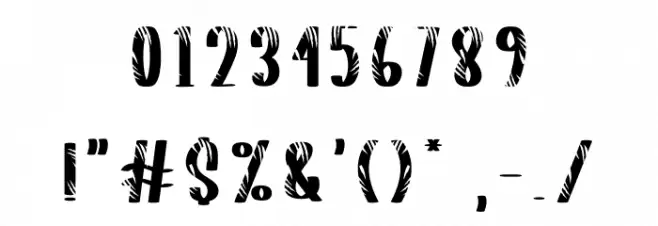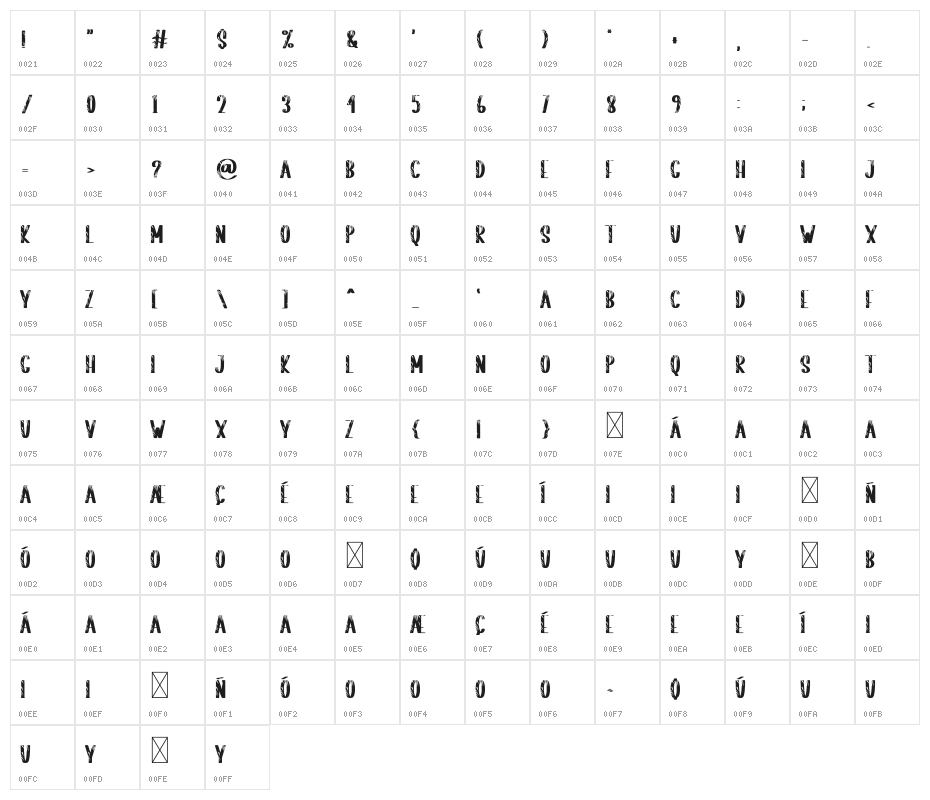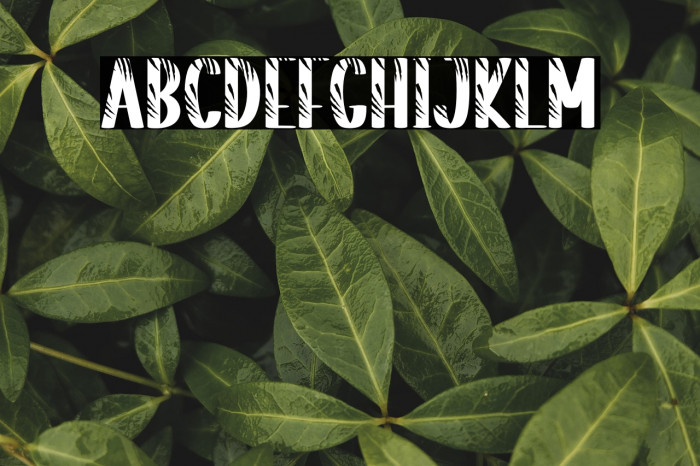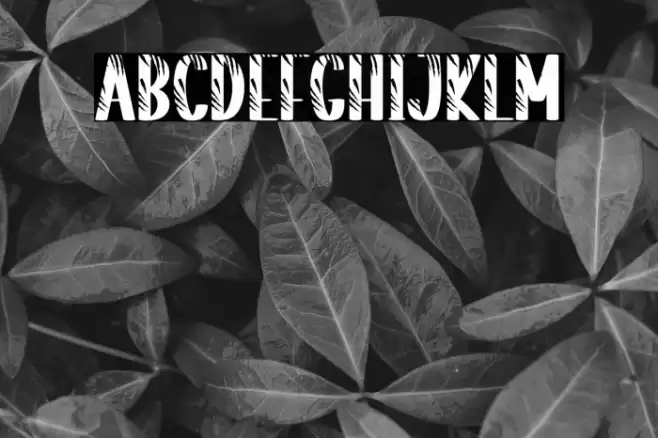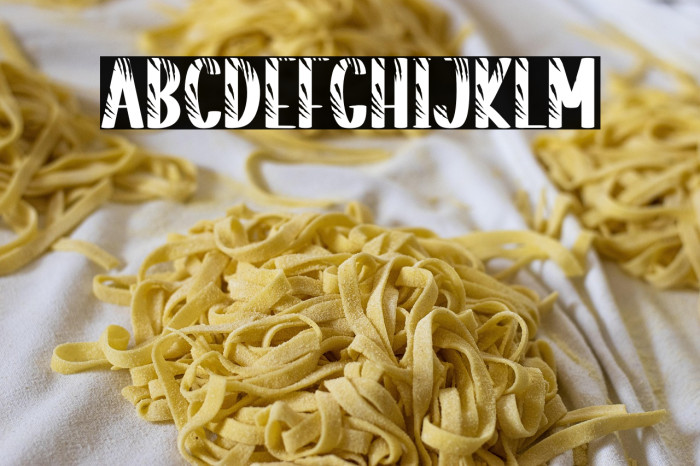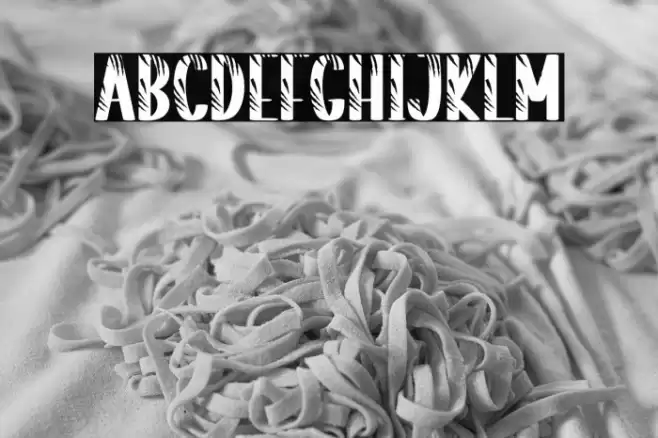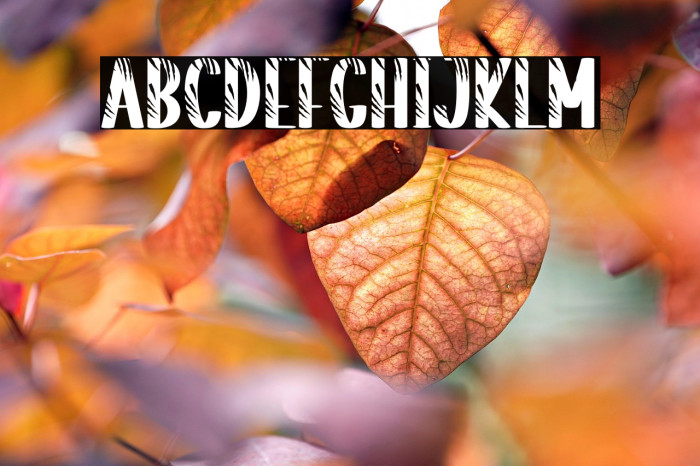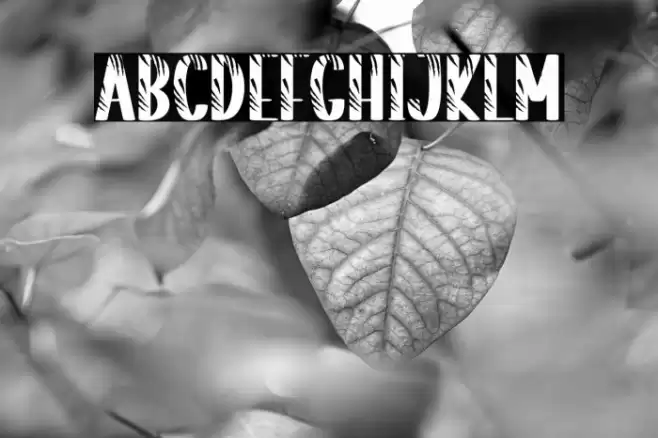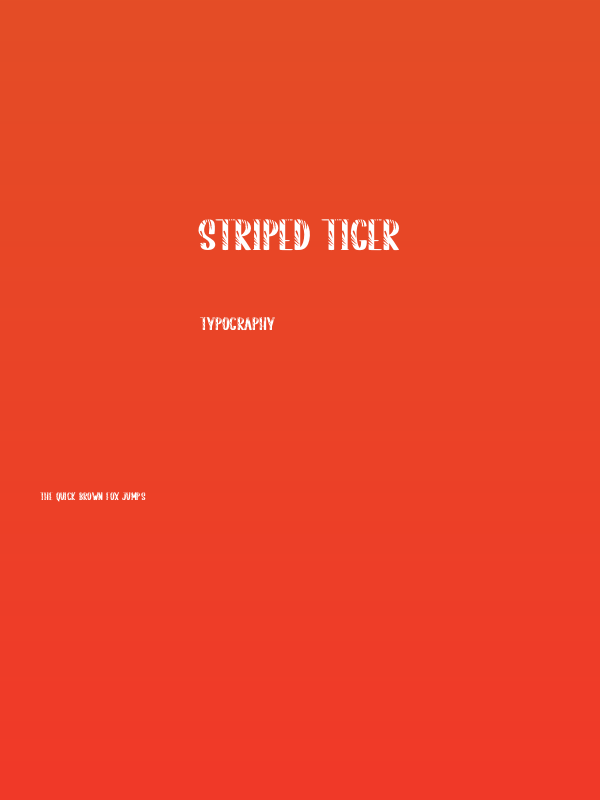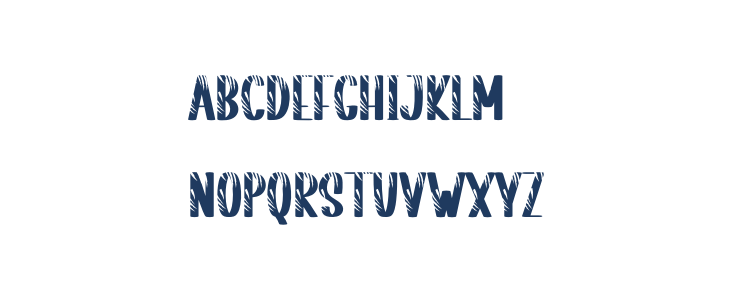
Striped Tiger Font
Striped Tiger Description
This font features a bold and striking design with a unique striped pattern reminiscent of tiger stripes. The uppercase and lowercase letters are crafted with a decorative flair, making each character stand out with its distinctive texture. The numbers and special characters maintain the same bold and textured style, ensuring consistency across all elements. This font's design is eye-catching and adds a dynamic, wild aesthetic to any project.
| Proposed Projects | Ideal for use in posters, logos, branding materials, and any project that requires a bold and adventurous look. |